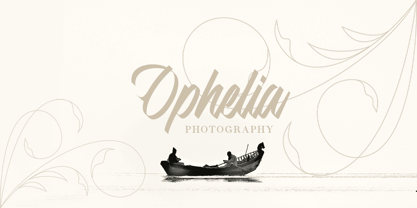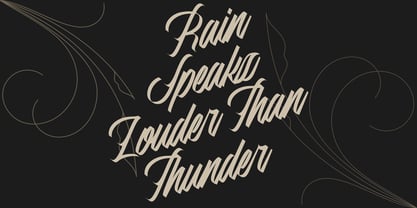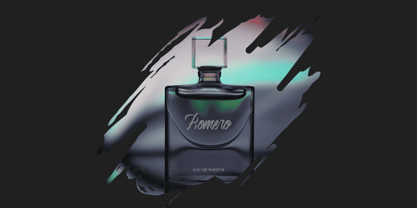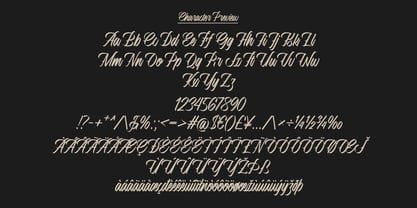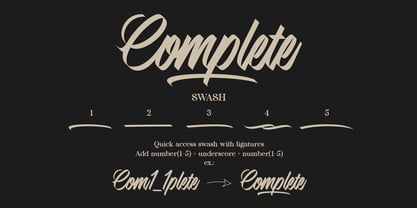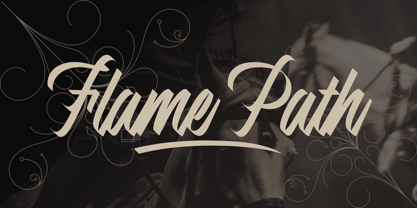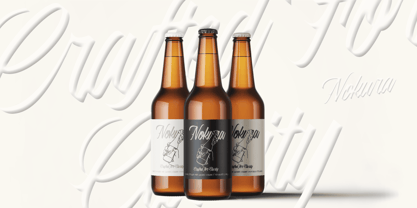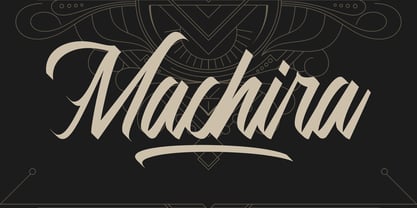
Machira
by Lemonthe
The Machira Font Family was designed by Dwi Ahidian and published by Lemonthe. Machira contains 1 styles. More about this family
Machira is a script font that blends classic character with a modern touch. Designed with bold strokes and sharp curves, Machira brings a dramatic yet elegant feel, perfect for branding, headlines, posters, logos, and packaging designs that aim to stand out.